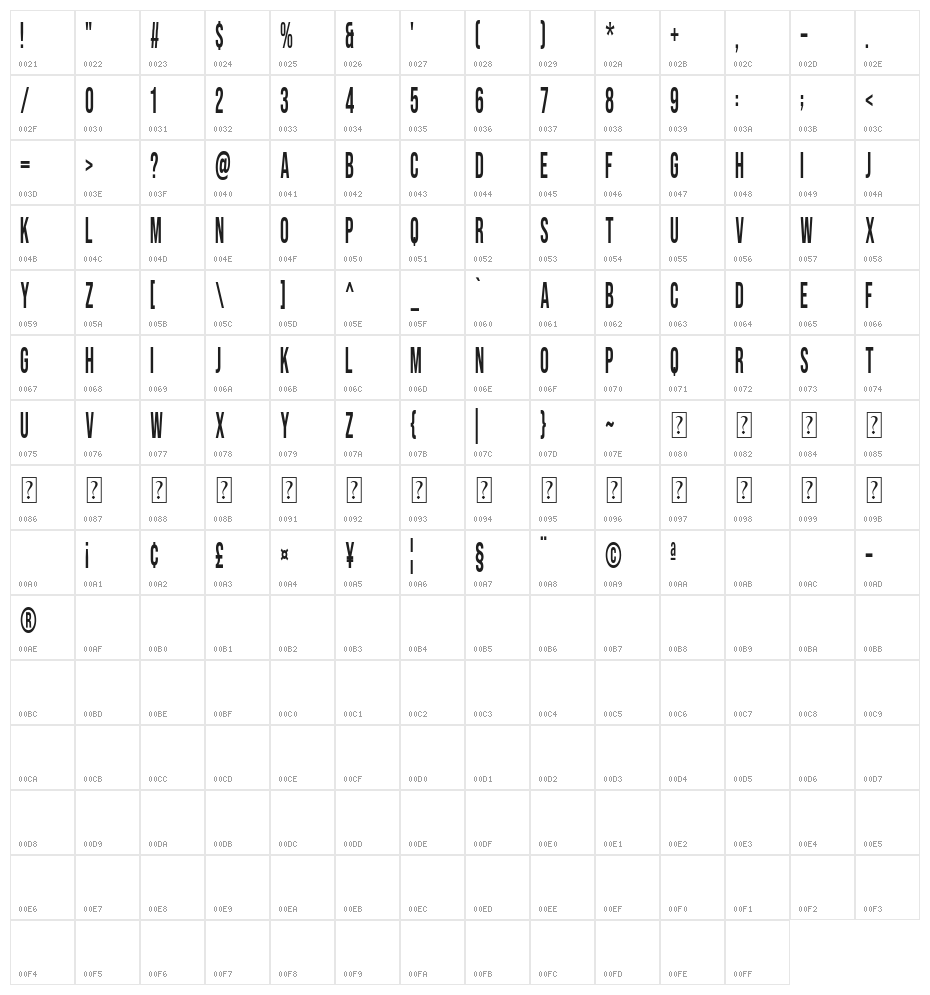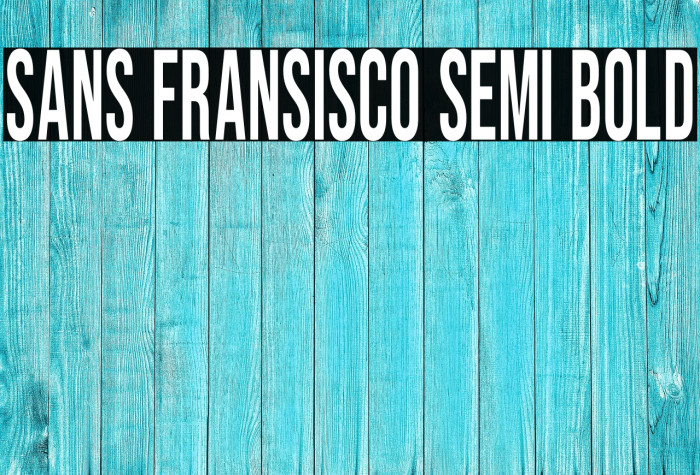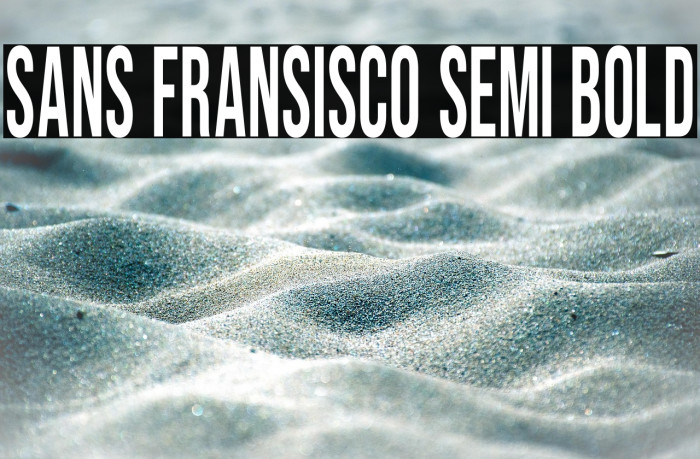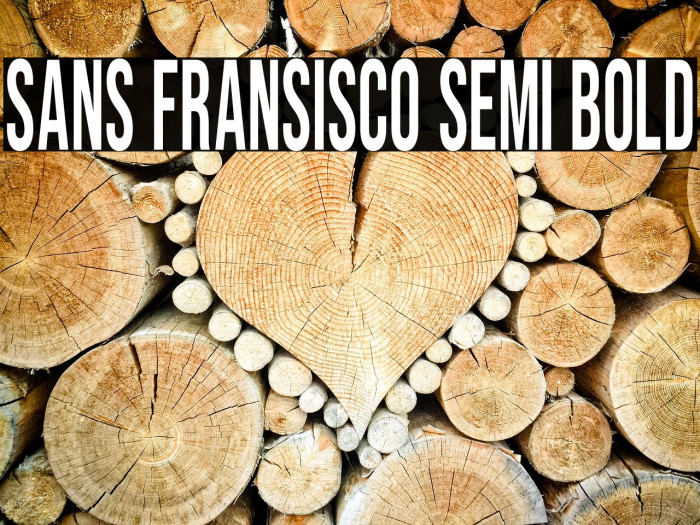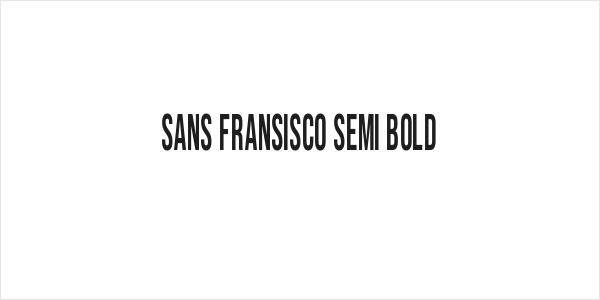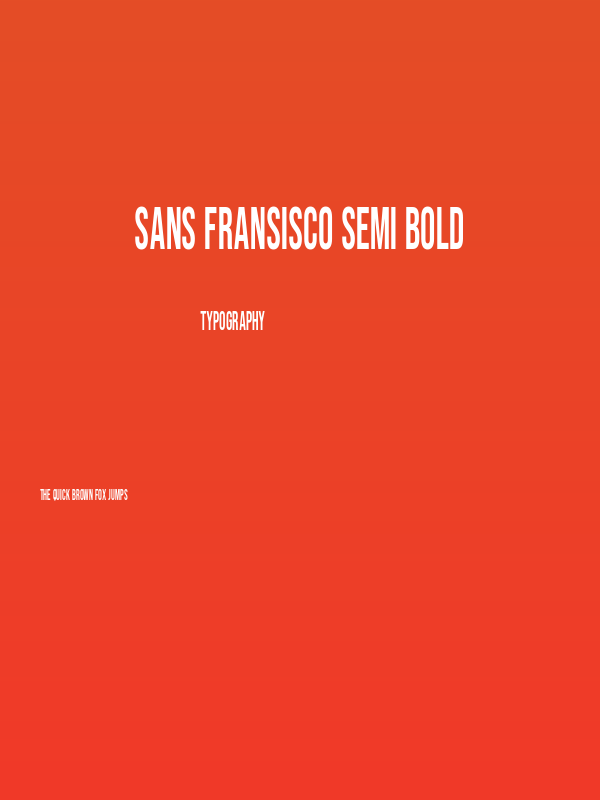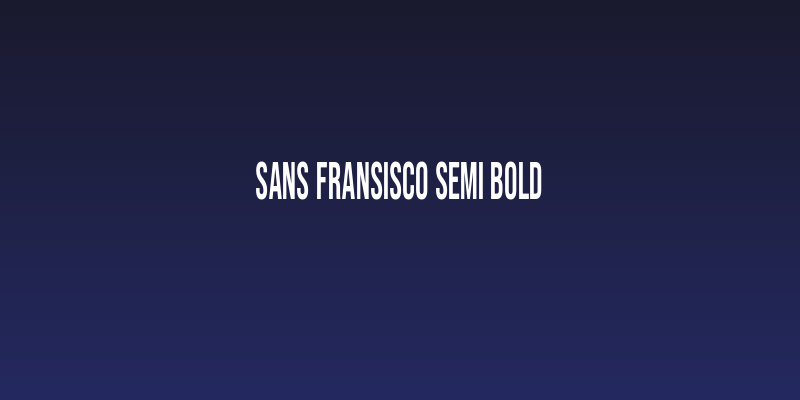
Sans Fransisco Semi Bold Font
Sans Fransisco Semi Bold Description
This font features a bold and modern sans-serif style with clean, straight lines and uniform stroke widths. The characters are tall and narrow, giving a condensed appearance that maximizes space efficiency while maintaining readability. The uppercase letters are prominent and assertive, making them ideal for headlines and attention-grabbing text. The numbers and special characters are designed with the same boldness, ensuring consistency across all elements. This font's strong presence makes it suitable for a variety of design applications where impact and clarity are essential.
| Proposed Projects | Ideal for branding, advertising, headlines, posters, and any project requiring a strong visual impact. |